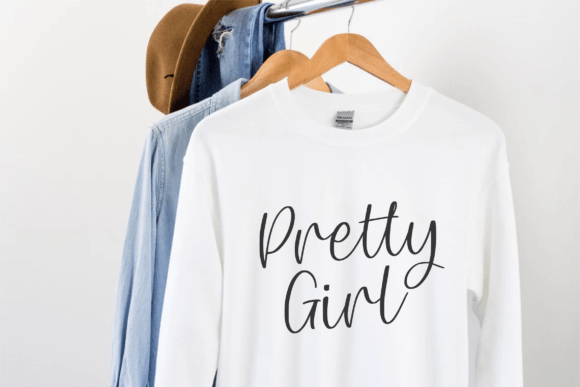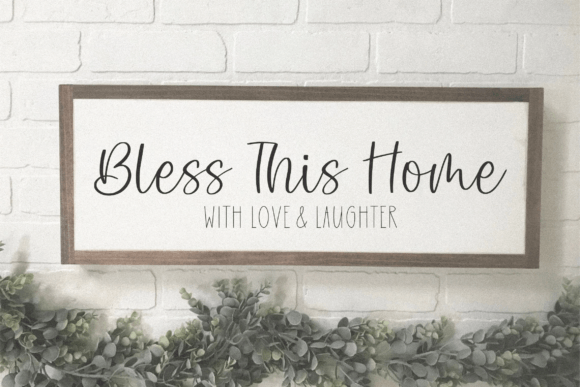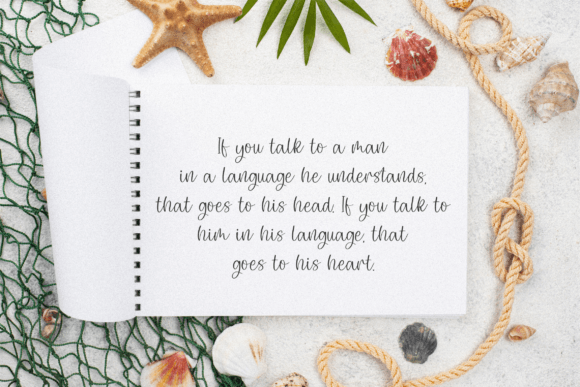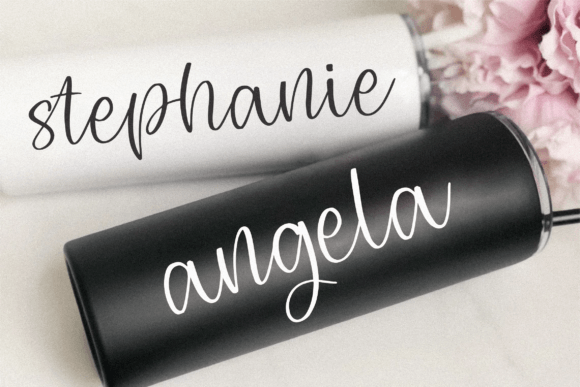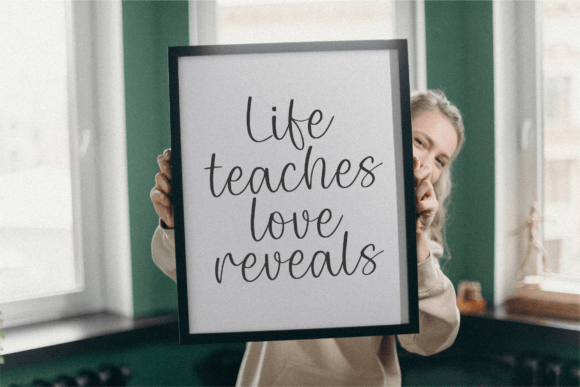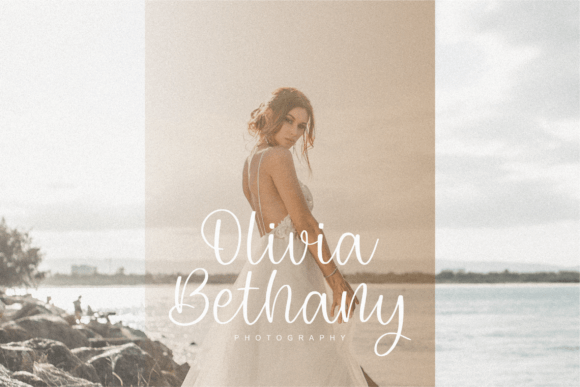
Introduction to Delomiqo Font
Delomiqo is a Modern Script Font Delomiqo is perfect for product packaging, branding project, megazine, social media, weddings, or just used to express words above the background.
Key Features of Delomiqo Font